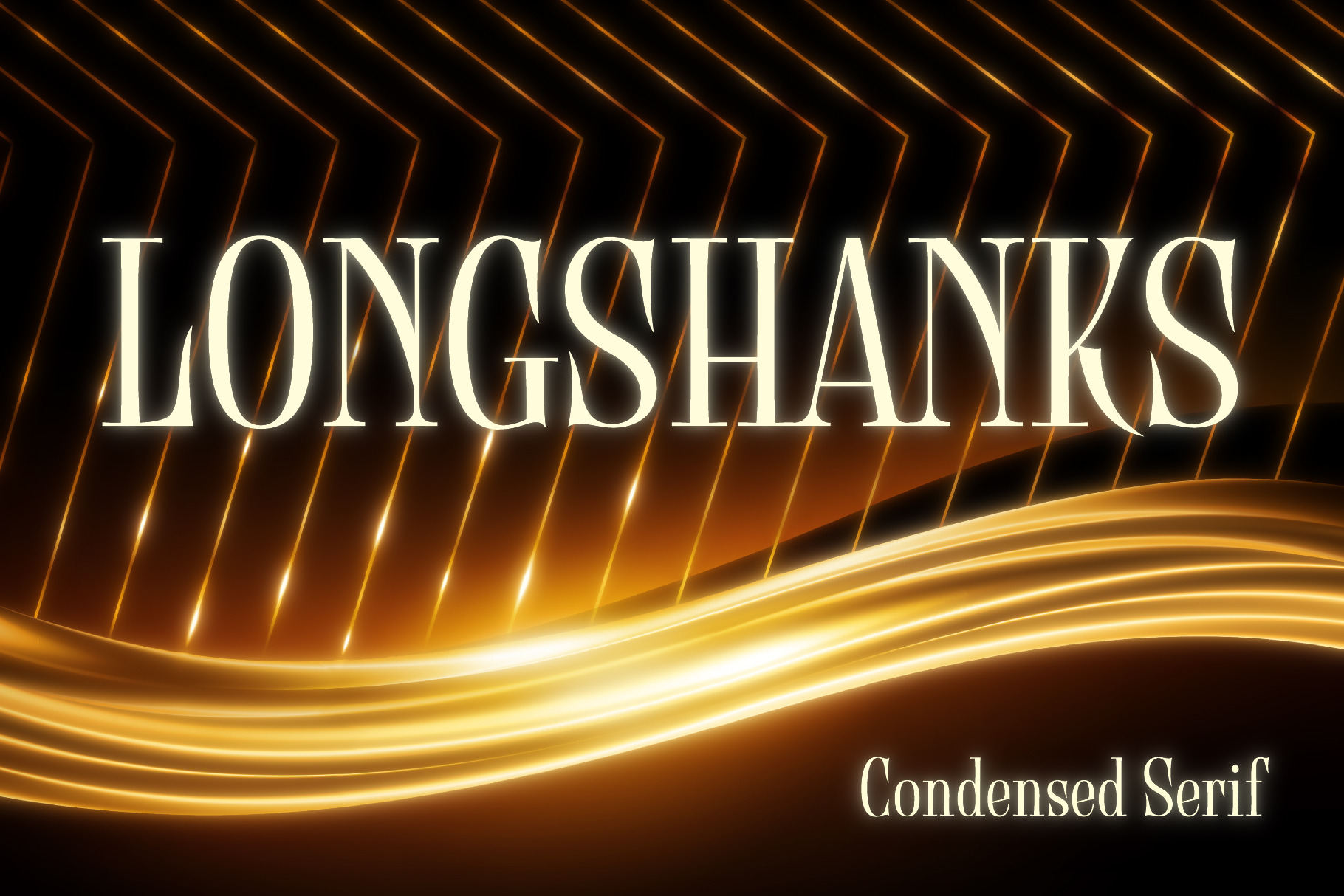
Longshanks Font
LONGSHANKS FONT
Longshanks is a condensed serif display font with a low waist, blade-like strokes, and other unusual detailing. This font features a medium-low x-height and works very well at larger display sizes. It's an excellent choice for any headline, banner, or title that would benefit from an old-world, historical, fantasy, magic, or sword & sorcery vibe. It also harks back to the metallic foil stamped type treatments from 1980s – 1990s romance novel book cover design. The offbeat features are subtle enough to leave this font with a very high degree of legibility in spite of its strong and dynamic treatment of certain serifs and finials. The namesake for this typeface is King Edward I of England, whose nickname was Edward the Longshanks.